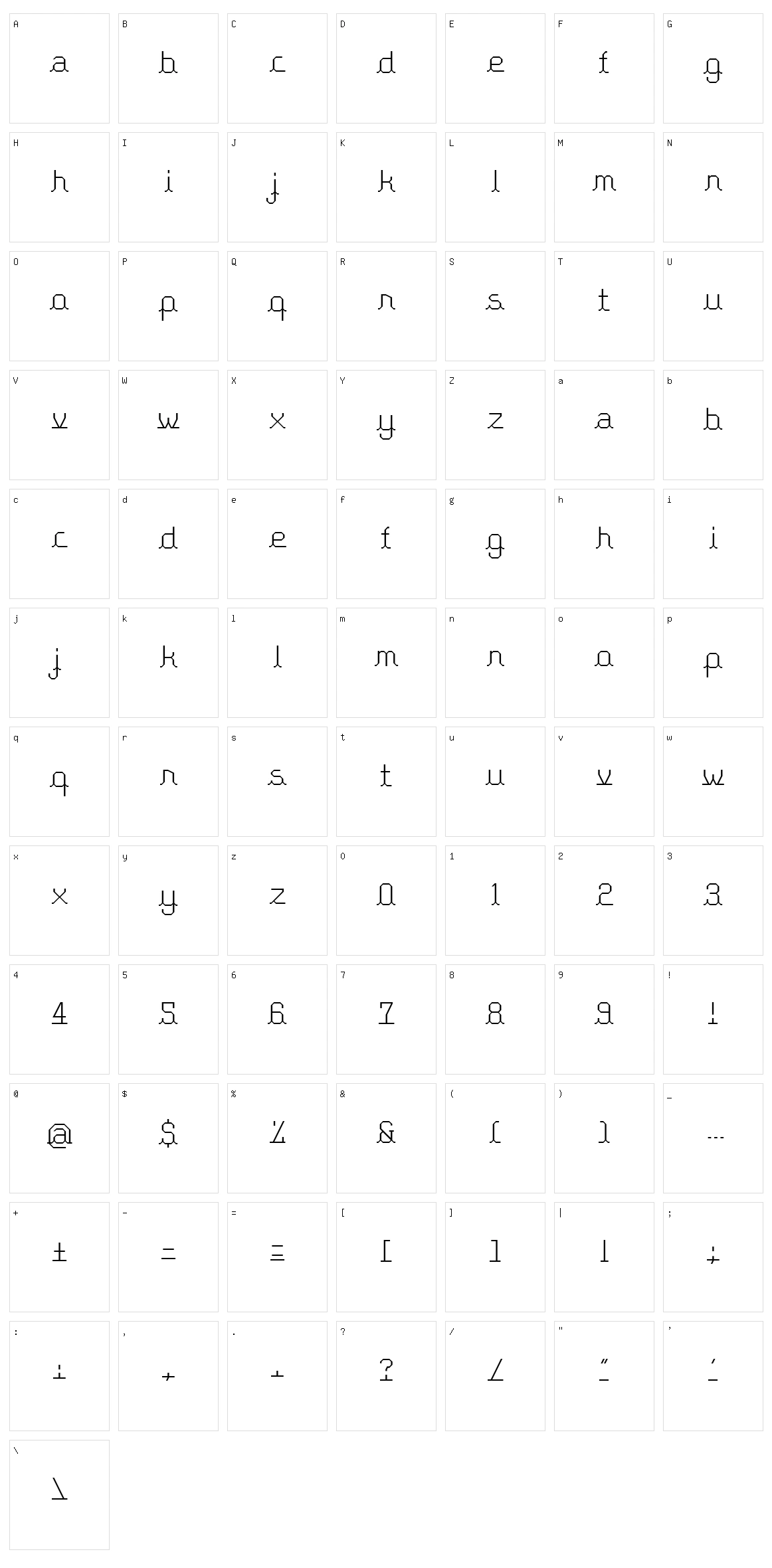
Please hold the line
PLEASE HOLD THE LINE is a techno-script font. I recommend using it at small sizes. In case you experience white spaces between letters, you should slightly decrease kerning/tracking.